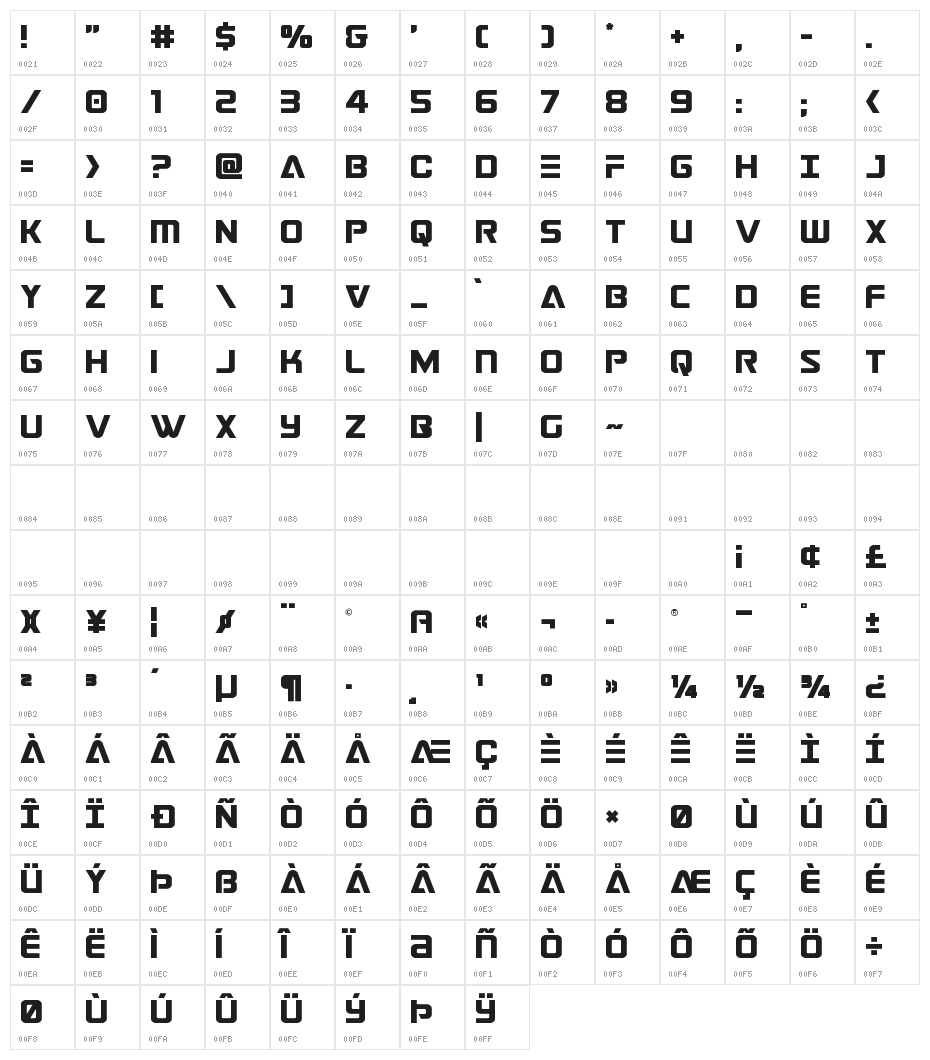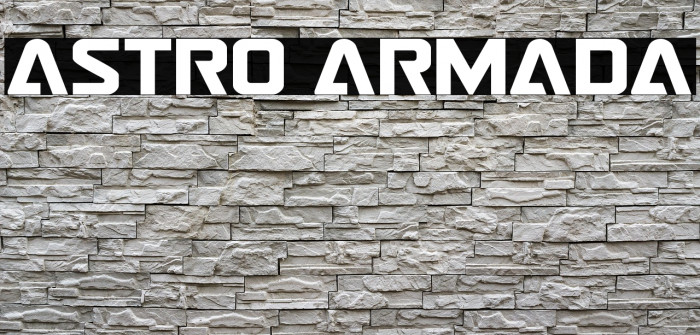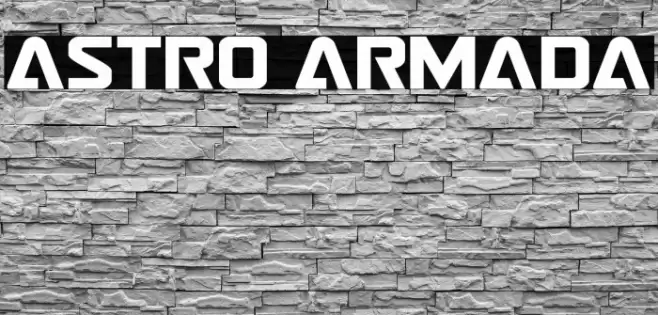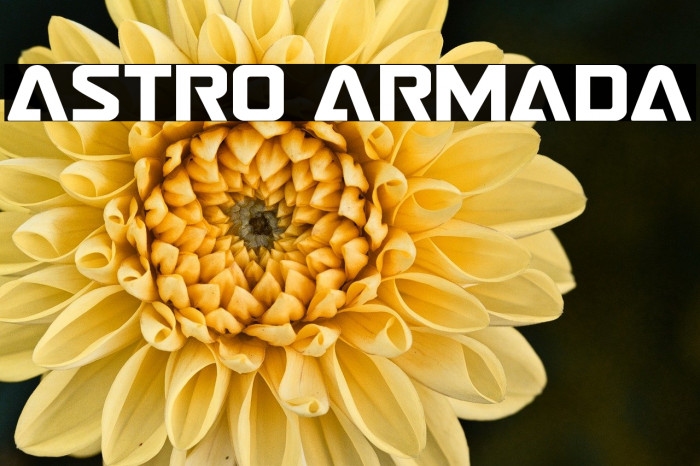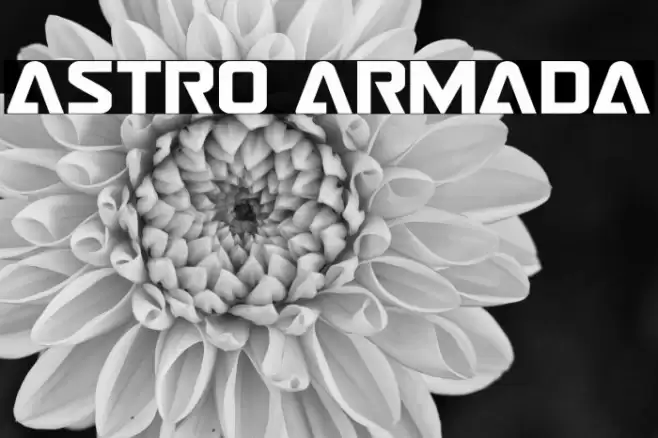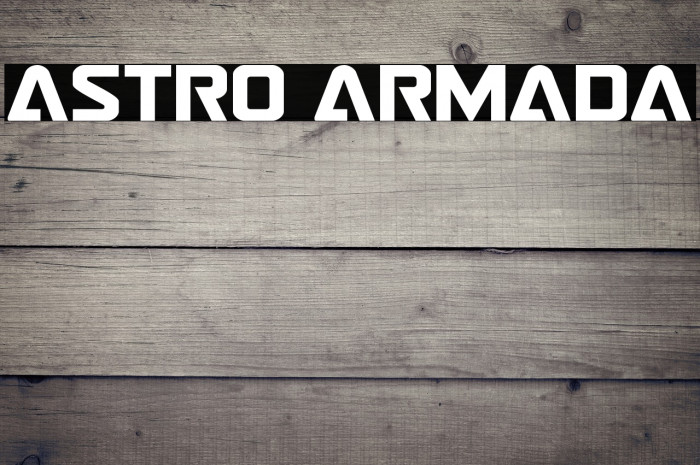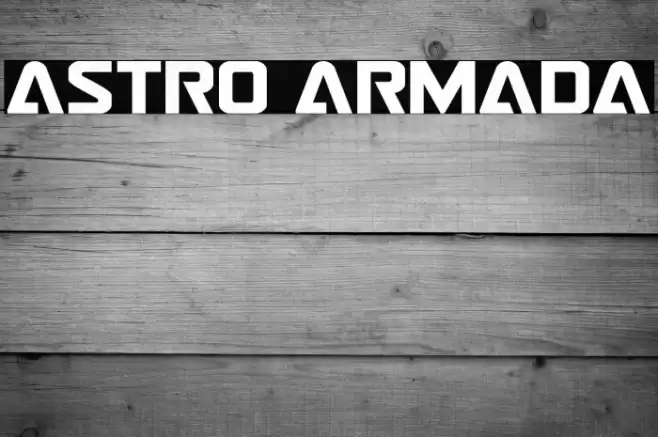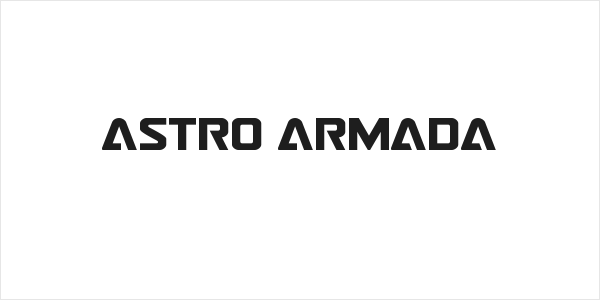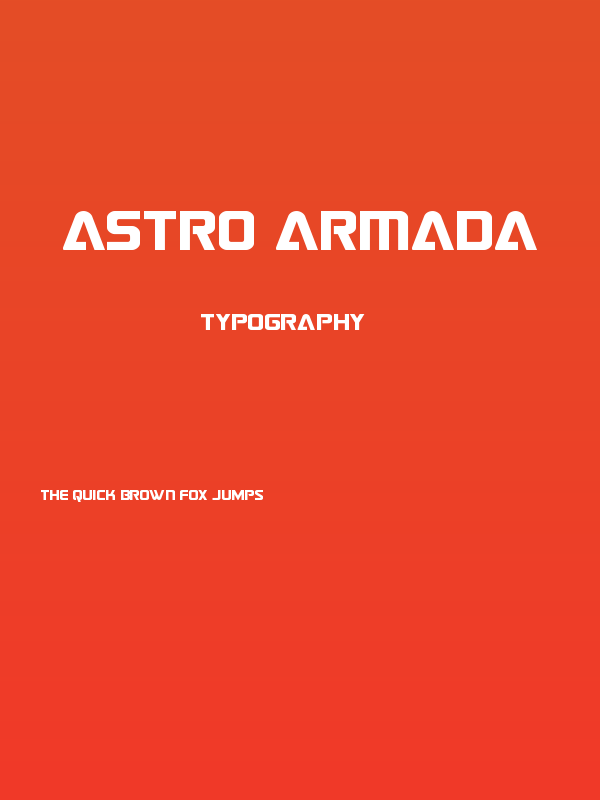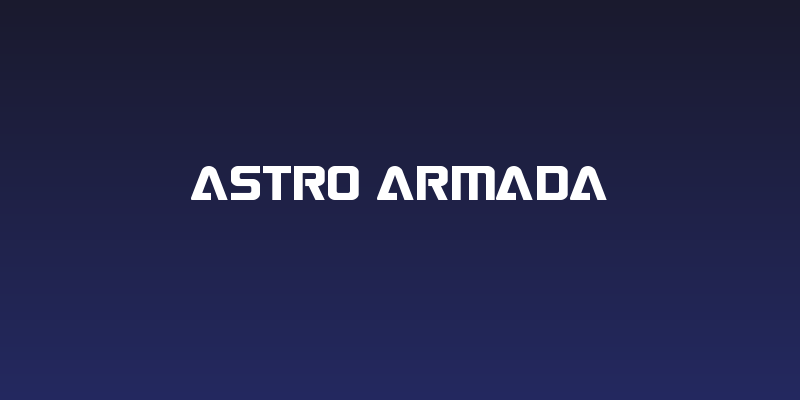
Astro Armada Font
Astro Armada Description
This font features a bold, futuristic design with geometric shapes and sharp angles. The uppercase letters are distinct with a strong presence, making them ideal for attention-grabbing headlines. The lowercase letters maintain the same geometric style, ensuring consistency throughout. Numbers are clear and legible, designed to stand out in any context. Special characters are crafted with the same attention to detail, providing a cohesive look across all elements. The overall style is modern and dynamic, suitable for projects that require a bold and innovative appearance.
| Proposed Projects | Ideal for sci-fi themed designs, technology branding, video game titles, and modern advertising. |